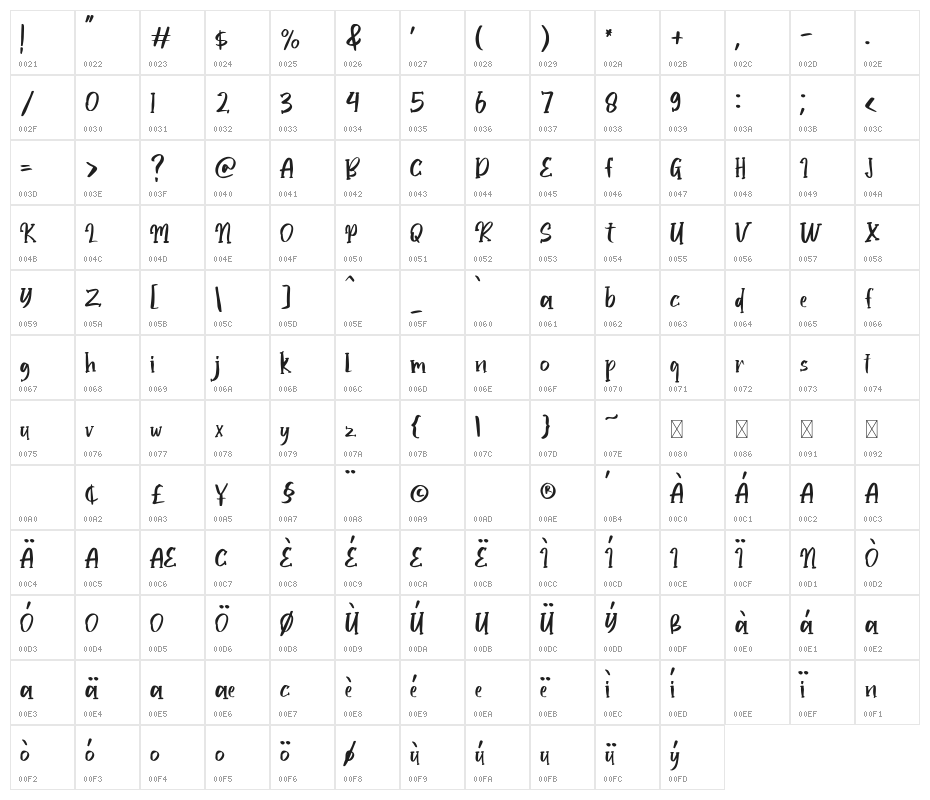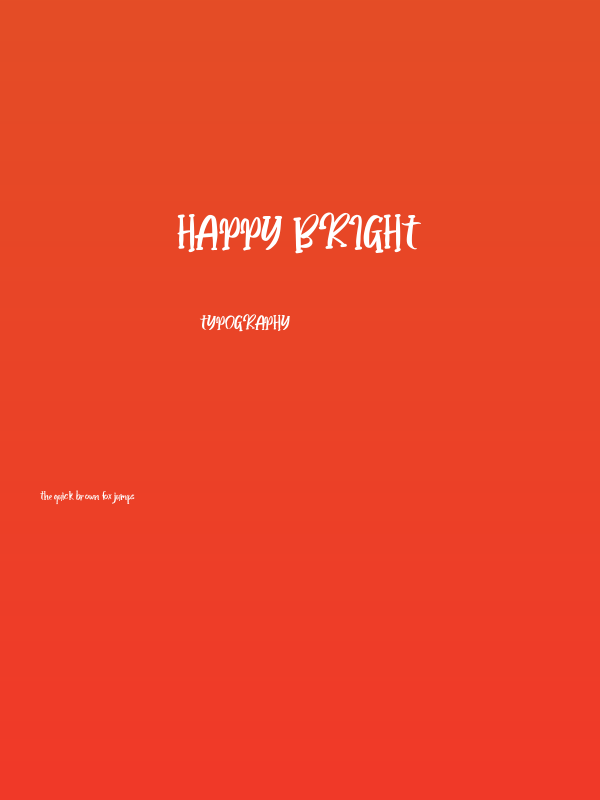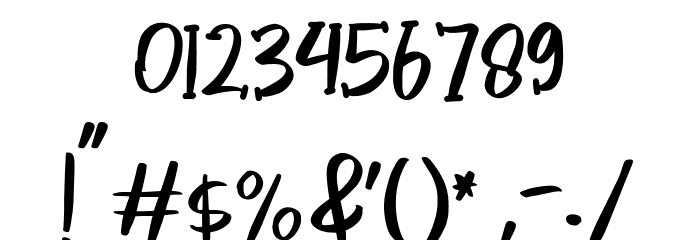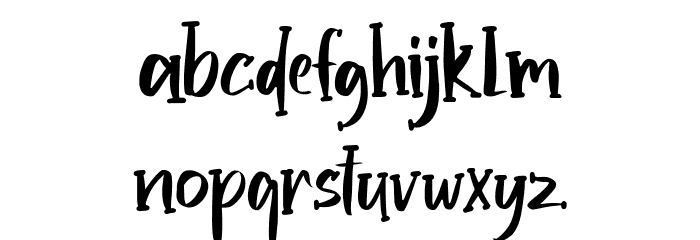
Happy Bright Font
Happy Bright Description
This font exudes a playful and energetic vibe, characterized by its bold and slightly irregular strokes that give it a handwritten feel. The uppercase letters are tall and slightly narrow, with a whimsical flair that adds a touch of personality. The lowercase letters maintain a consistent style, with rounded edges and a casual flow. Numbers are clear and legible, matching the overall playful theme. Special characters are creatively designed, adding to the font's charm. This font is perfect for projects that require a lively and informal touch.
| Overall Style | Playful |
| Use Case | Headlines, Logos, Informal Text |
| Proposed Projects | Ideal for greeting cards, children's books, playful branding, and social media graphics. |